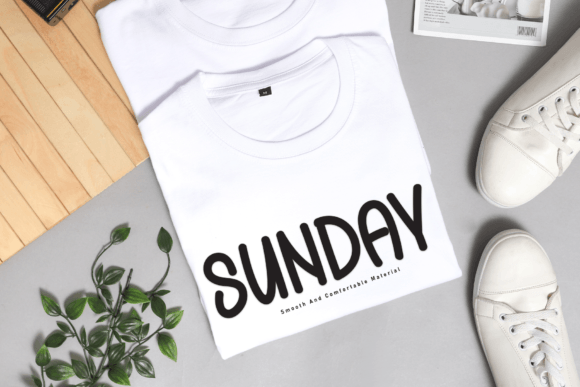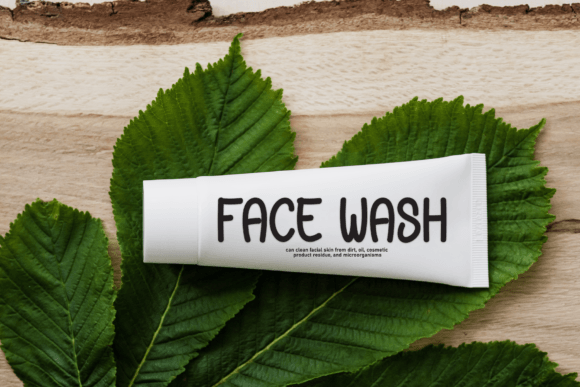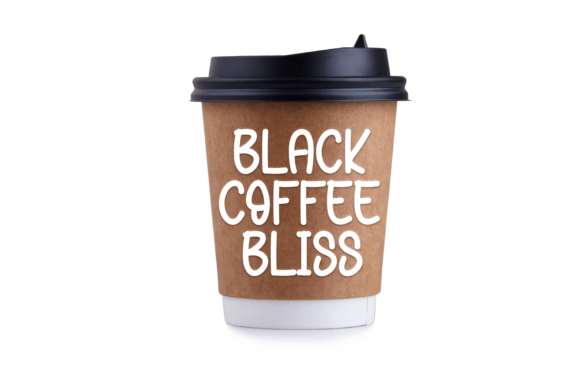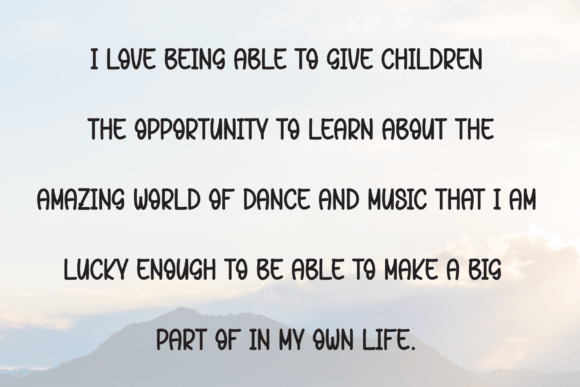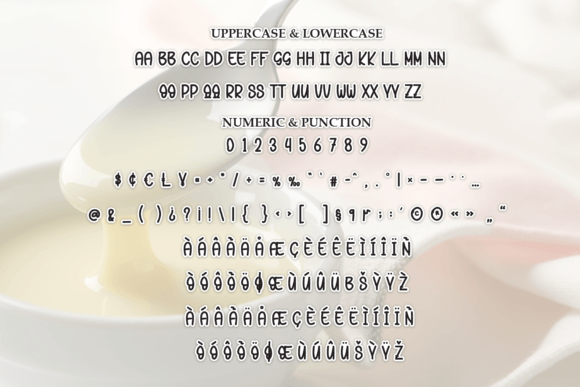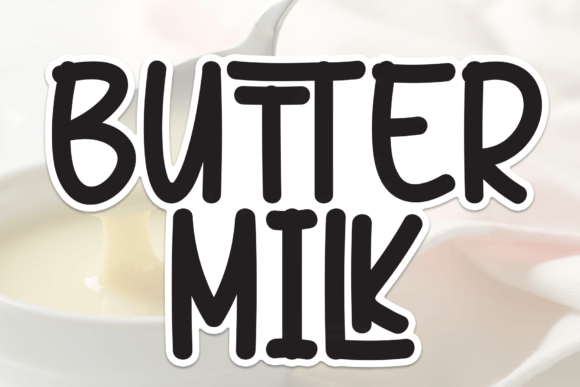
Introducing Butter Milk Font: The Sweet and Friendly Handwritten Font
Are you a designer or crafter looking for a font that can add a touch of warmth and personality to your projects? Look no further than Butter Milk Font! This sweet and friendly handwritten font is perfect for a wide range of designs, from invitations and greeting cards to branding and packaging. In this article, we’ll take a closer look at the features and benefits of Butter Milk Font, and explore how you can use it to take your designs to the next level.
A Natural and Unique Style
Butter Milk Font is a beautifully crafted handwritten font that boasts a natural and unique style. Its irregularities and imperfections give it a charming, homemade feel that’s perfect for designs that need a personal touch. The font’s sweet and friendly demeanor makes it incredibly versatile, and it can be used for a wide range of projects, from formal to informal.
Key Features of Butter Milk Font
So what makes Butter Milk Font so special? Here are just a few of its key features:
- Handwritten style: Butter Milk Font is a beautifully crafted handwritten font that boasts a natural and unique style.
- Sweet and friendly demeanor: This font has a warm and welcoming feel that’s perfect for designs that need a personal touch.
- Highly versatile: Butter Milk Font can be used for a wide range of projects, from formal to informal.
- Easy to read: Despite its handwritten style, Butter Milk Font is incredibly easy to read, making it perfect for designs that need to communicate a message.
Tips for Using Butter Milk Font
In conclusion, Butter Milk Font is a sweet and friendly handwritten font that’s perfect for designers and crafters looking to add a touch of warmth and personality to their projects. Its natural and unique style makes it incredibly versatile, and it can be used for a wide range of designs. With its highly legible and easy-to-read style, Butter Milk Font is sure to become a favorite in your font collection. So why wait? Download Butter Milk Font today and start creating your own beautiful designs!